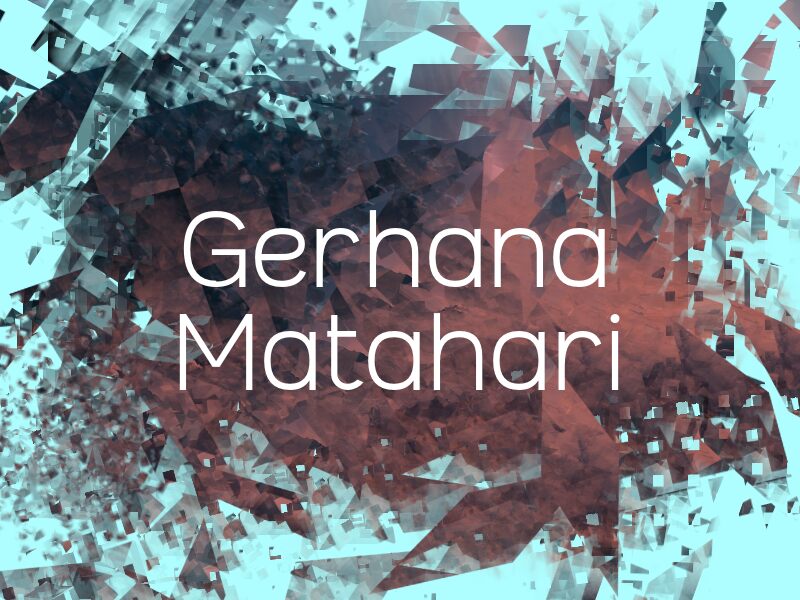
Gerhana Matahari
Gerhana Matahari font by wep is a sleek sans serif typeface that embodies modern elegance and simplicity. Its well-proportioned letters exude a clean and minimalistic charm, making it ideal for various design contexts. The font's distinct features include its smooth curves and balanced structure, which enhance readability while delivering an aesthetically pleasing experience.
This versatile free font is perfect for branding, digital interfaces, and editorial designs. Whether used in headlines or body text, Gerhana Matahari's clarity stands out, providing designers with a reliable choice for professional and creative projects.